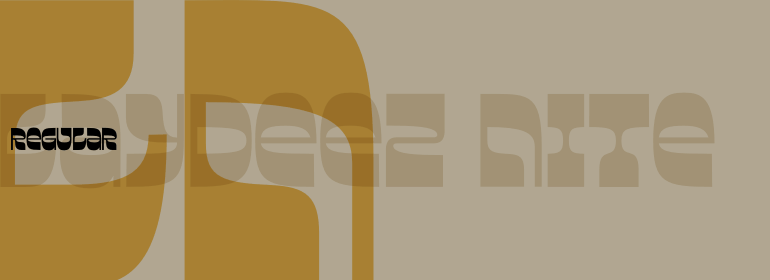
Laydeez Nite
Font Family by Device
With 1 font style in the family, this is a focused choice for designers who want a strong period look without overcomplicating the palette. It’s well suited to posters, branding, packaging, album-inspired graphics, event pieces, and other display work that calls for an unmistakably throwback tone.